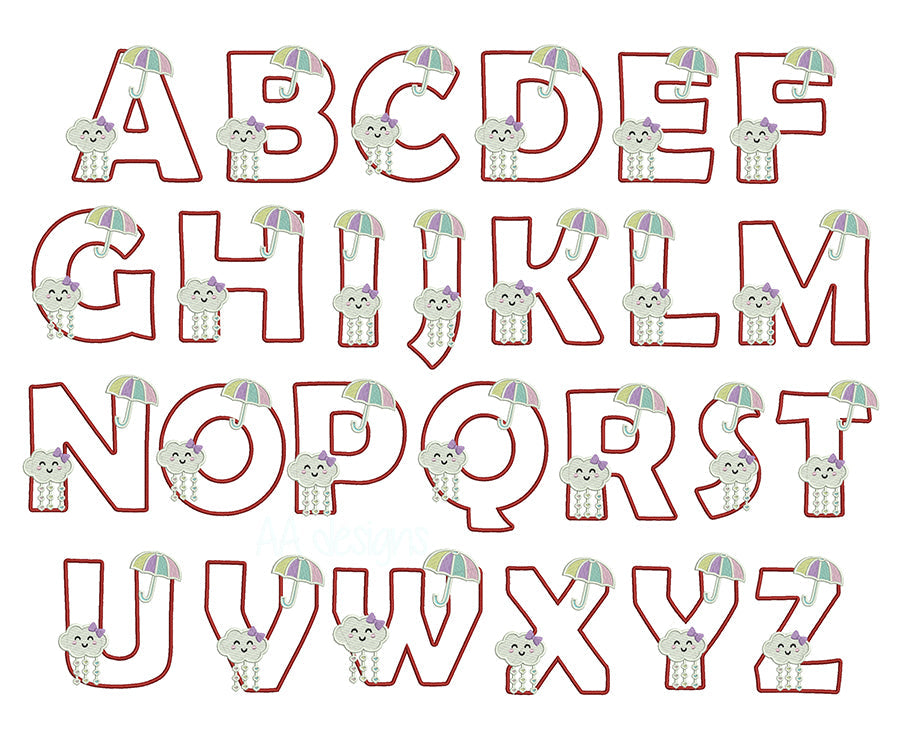
Best Applique Embroidery Fonts for Kids’ Clothing & Gifts (2026)
Why Applique Fonts Are Perfect for Kids’ Projects
When it comes to embroidering children’s clothing and gifts, applique embroidery fonts are a top choice for good reason. The bold, fabric-filled letters are soft, durable, and wash well — making them ideal for baby onesies, toddler tees, bibs, backpacks, and personalized gifts.
Unlike flat embroidery, applique uses a fabric layer to fill the letters, which means fewer stitches, softer results, and more vibrant colors — perfect for delicate kids’ garments.
What to Look for in a Kids’ Applique Font
- 🎨 Playful, rounded letterforms — chunky block or cartoon-style letters work best for a fun, child-friendly look
- 💪 Bold strokes — thin letters are harder to applique cleanly; go for thick, clear shapes
- ✂️ Clean edges — well-digitized fonts have smooth satin borders that are easy to trim
- 👕 Works at 1.5–3 inches — ideal size range for kids’ garment lettering
Best Applique Fonts for Kids from Embroidery Sky
Sun Baby Applique Font
Bright, cheerful letterforms inspired by sunshine and warmth — perfect for baby onesies, nursery décor, and newborn gifts. The rounded shapes stitch beautifully on soft cotton and fleece fabrics.
Cartoon Applique Font
Fun, bold cartoon-style letters that kids love. Great for personalizing backpacks, lunchboxes, t-shirts, and birthday gifts. The chunky letterforms are easy to applique and look amazing in bright, patterned fabrics.
Wild Applique Font
A playful, energetic font with a wild, adventurous feel — ideal for kids who love animals, nature, and outdoor themes. Works great on hoodies, jackets, and tote bags.
Volleyball Applique Font
Bold sporty letters for young athletes. Perfect for personalizing sports bags, team uniforms, and kids’ jerseys with names and numbers.
Basketball Applique Font
Strong athletic style that works great for kids’ sports gear, team hoodies, and personalized gym bags.